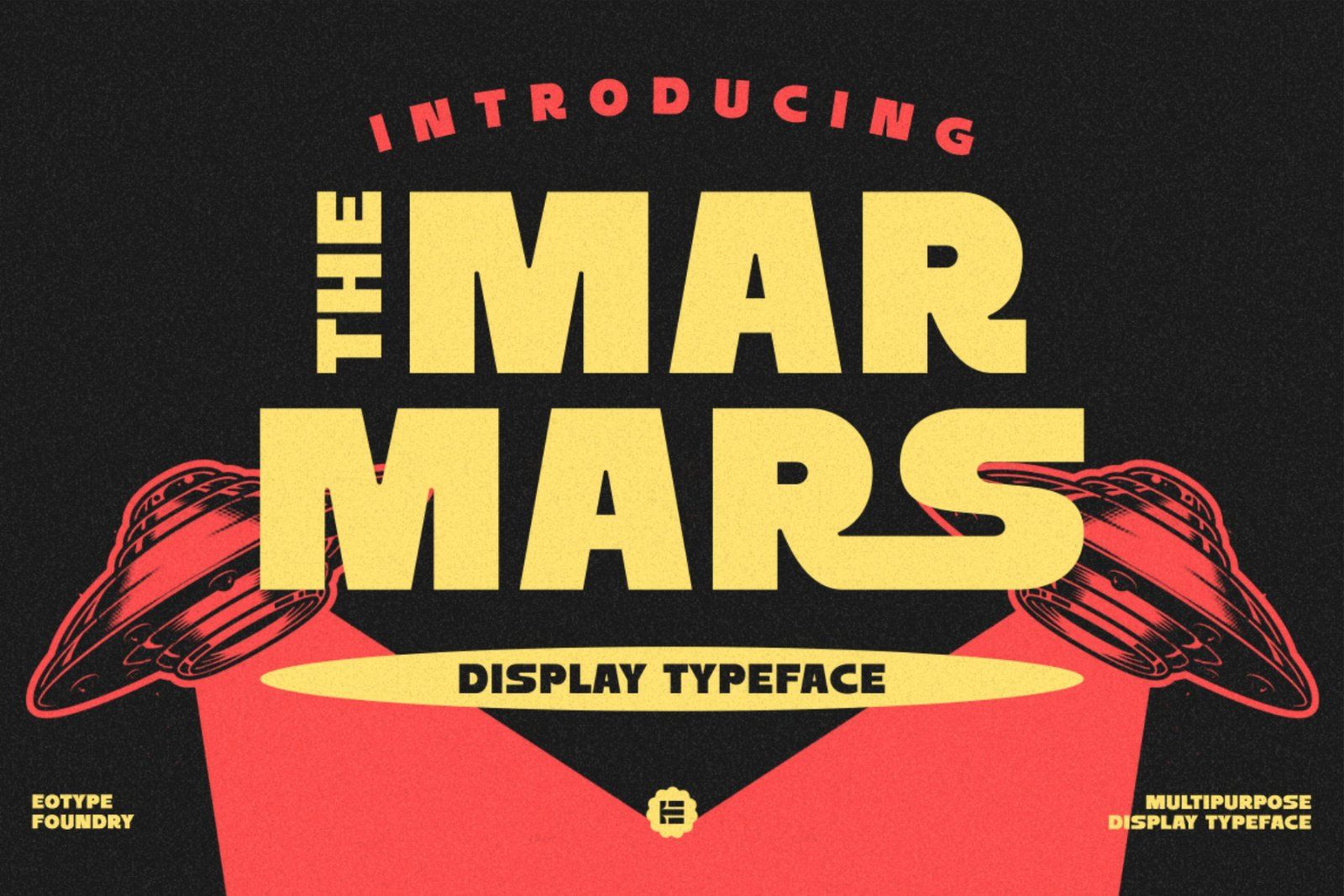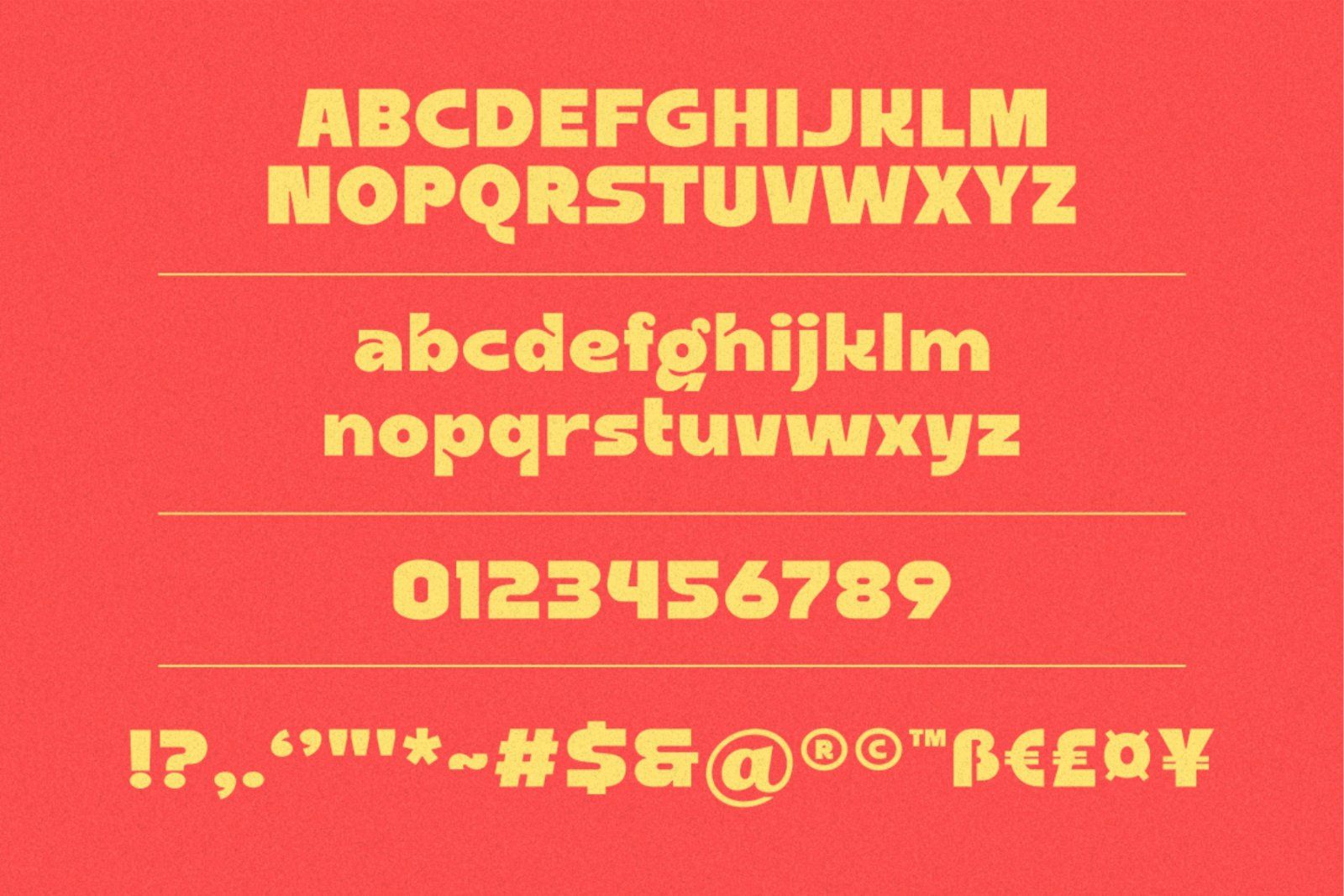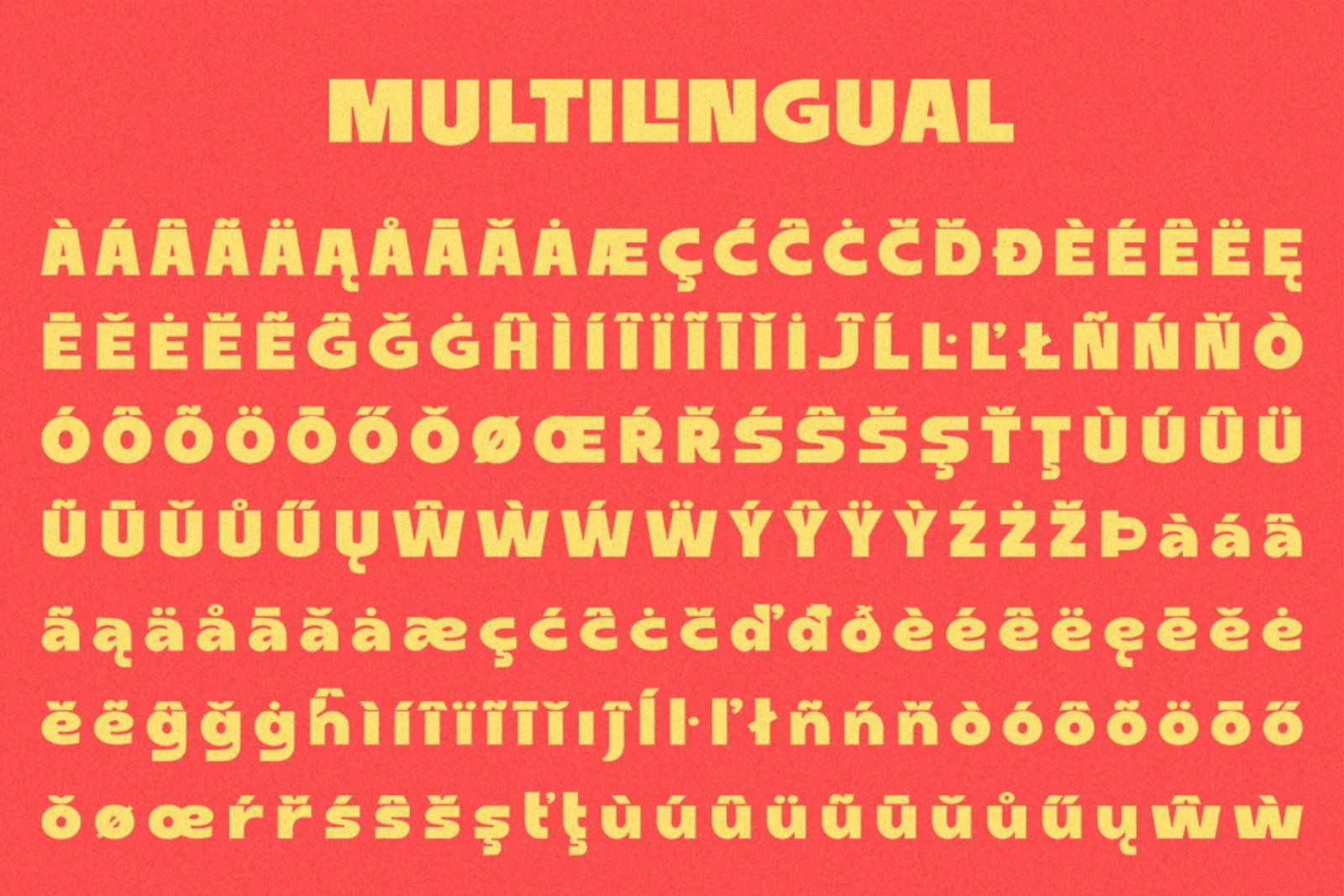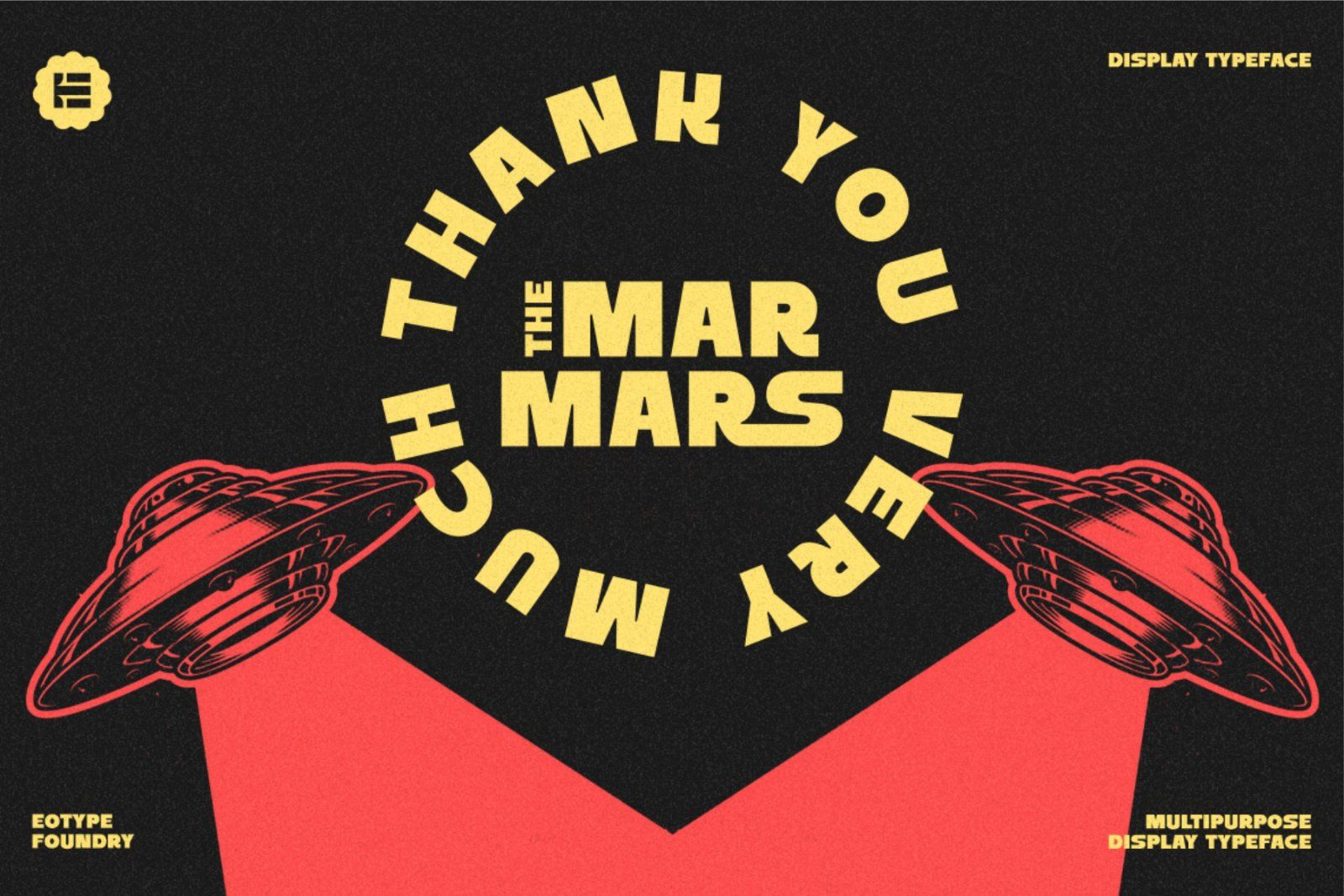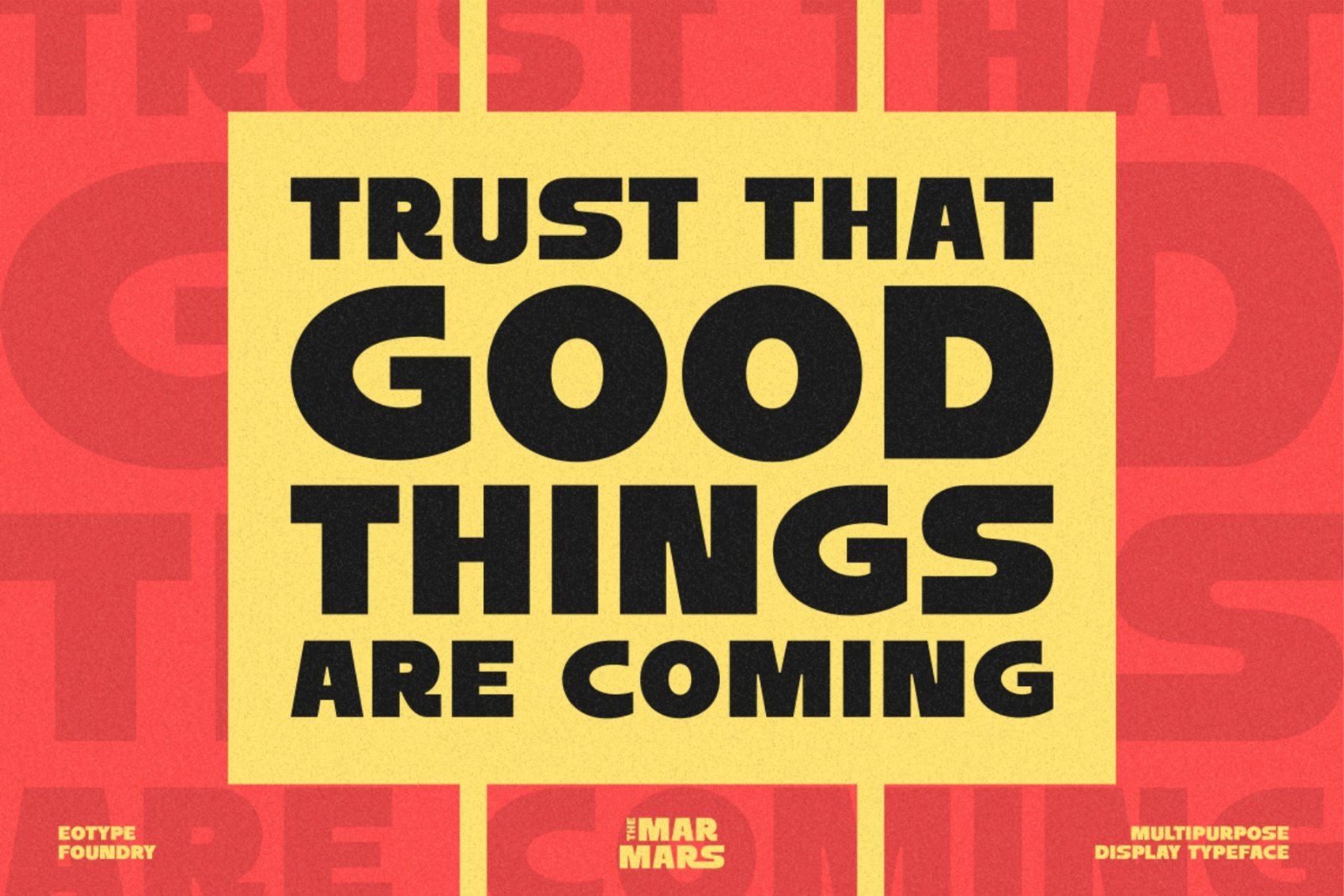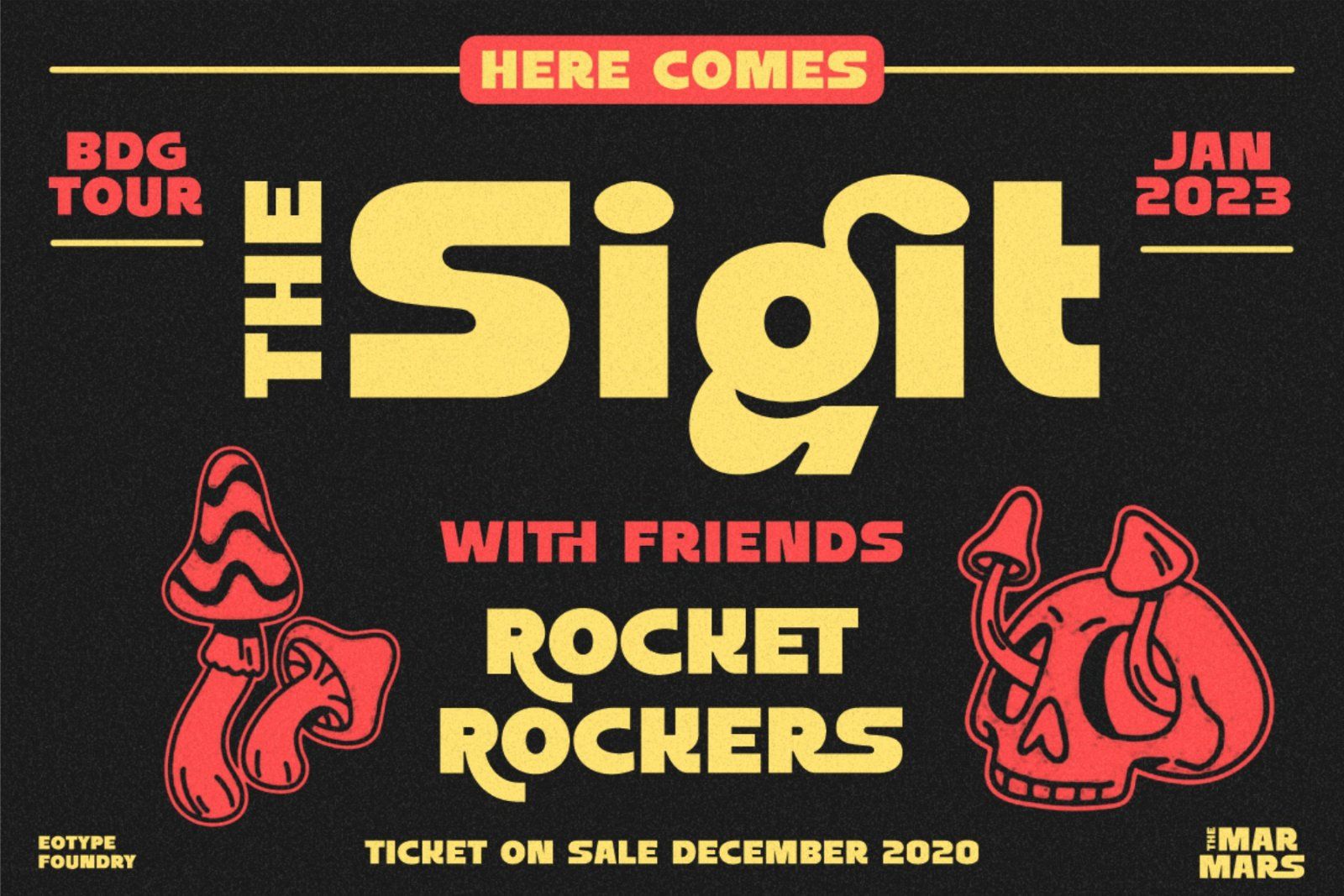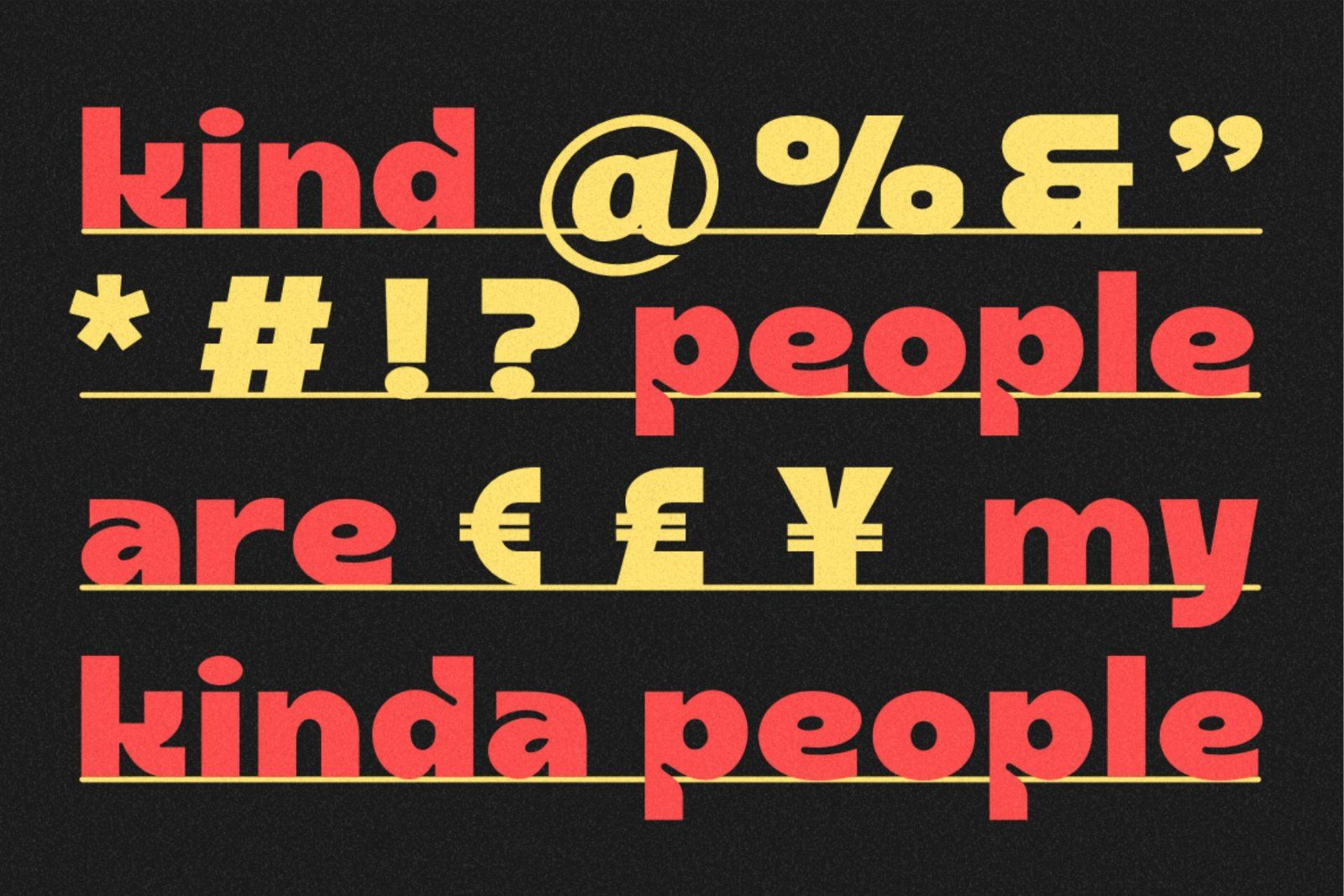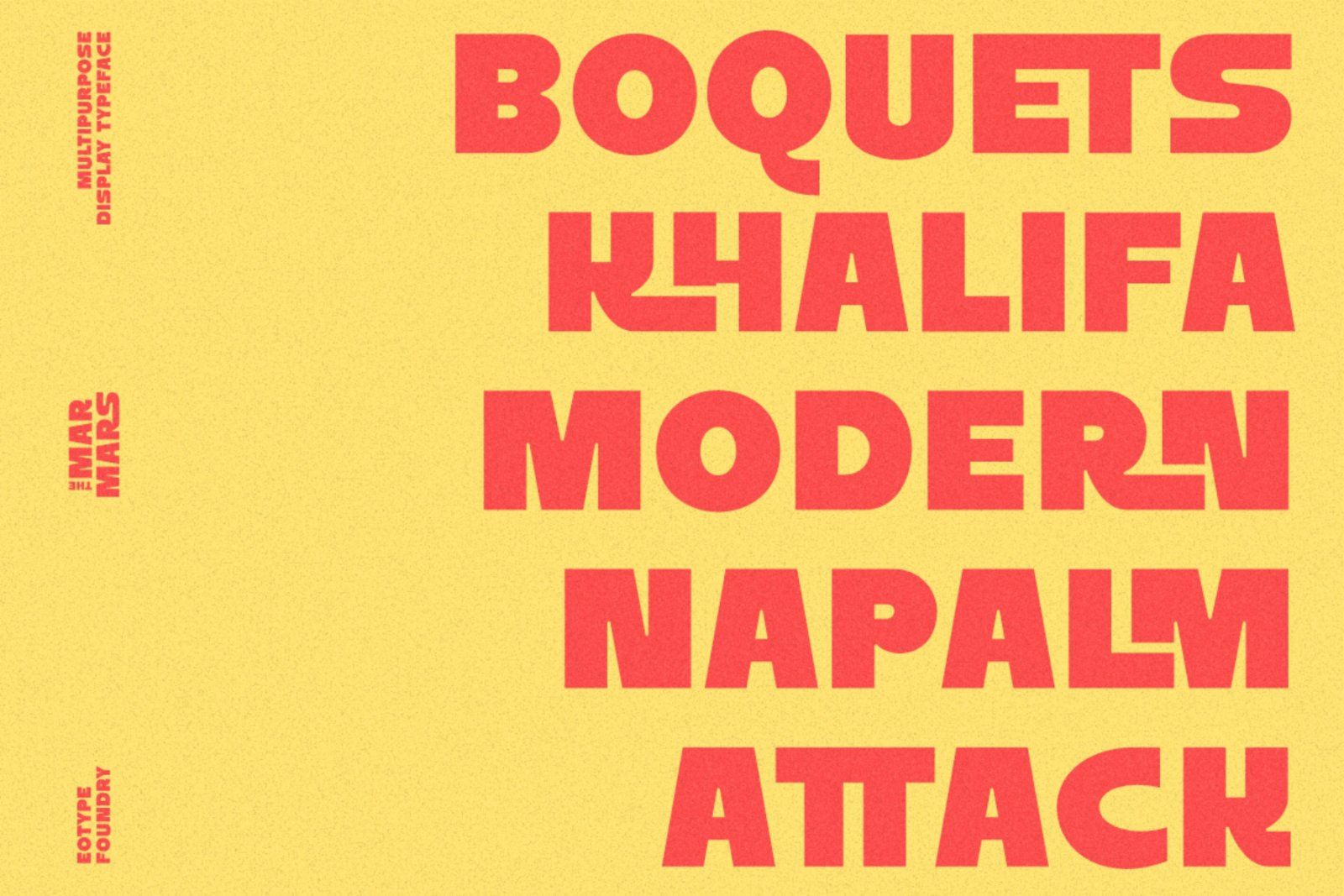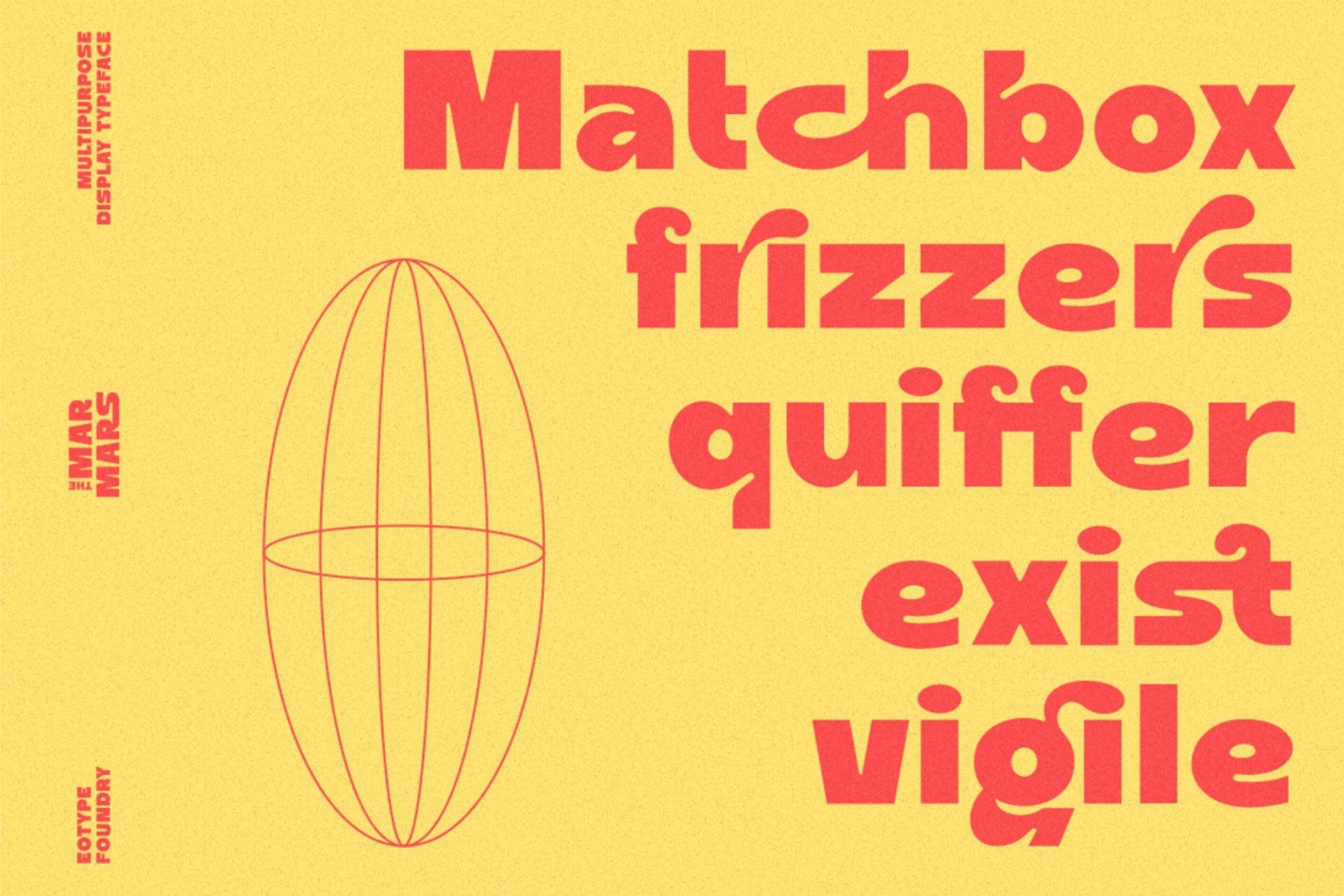
The Marmars is display typeface that has bold characteristics. This font can give your designs a playful and friendly impression. You can use this font for retro, vintage and urban designs. This font comes with alternative style and ligature features which are suitable for various projects such as logos, product labels, posters and many more.